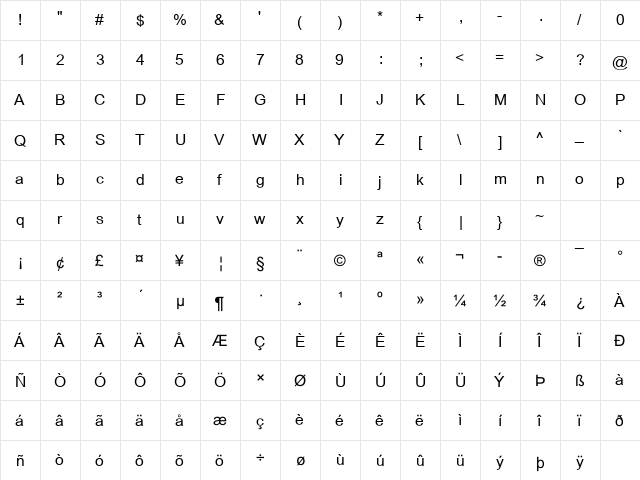
Browallia New Regular
Browallia New is a composed and adaptable typeface that performs quietly and consistently across a wide range of design contexts.